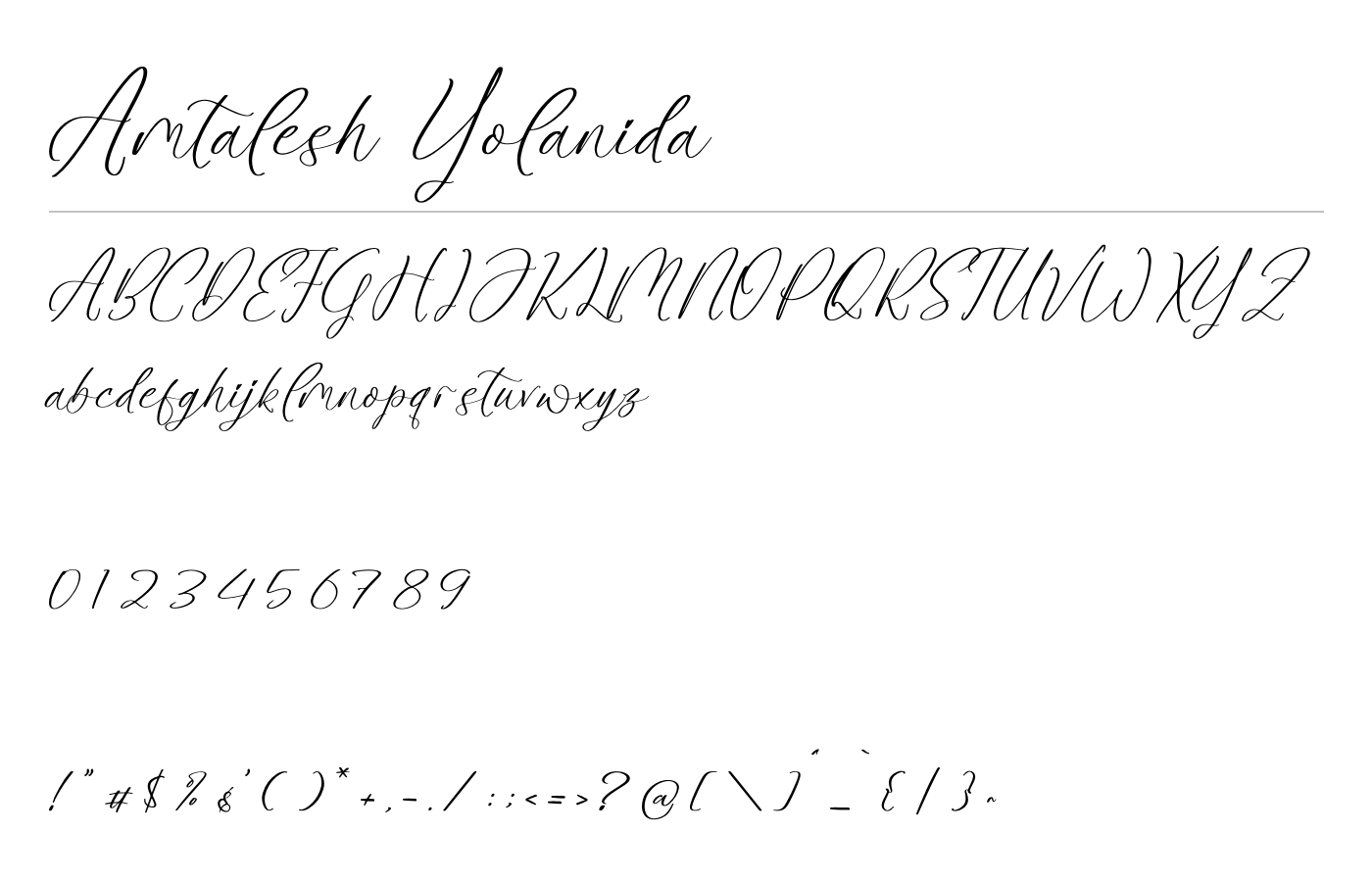
Amtalesh Yolanida is a delicate, elegant script font with fluid, hand-drawn strokes that convey a sense of sophistication and grace. Its fine lines and cursive style make it ideal for invitations, logos, and branding that require a personal, refined touch. This font works beautifully in contexts where a stylish, gentle, and artistic feel is desired.
Amtalesh Yolanida Font
About Amtalesh Yolanida Font